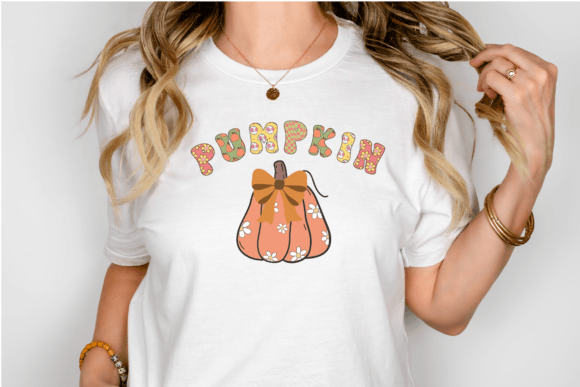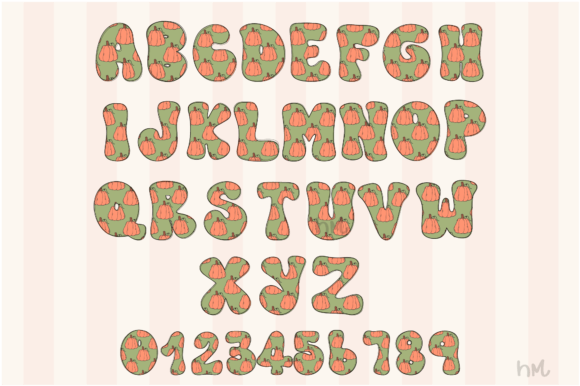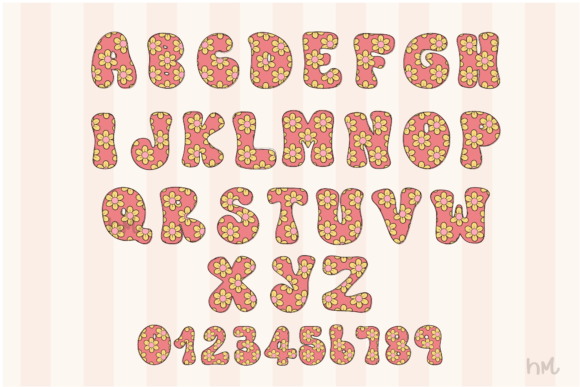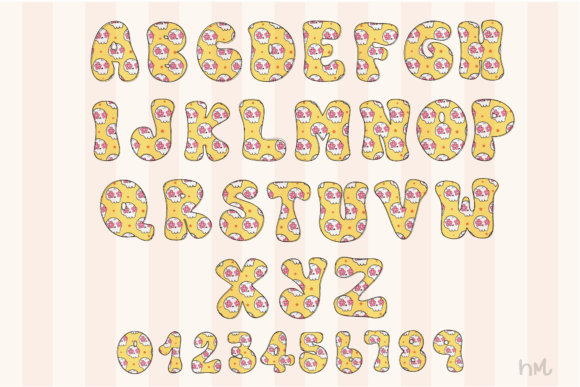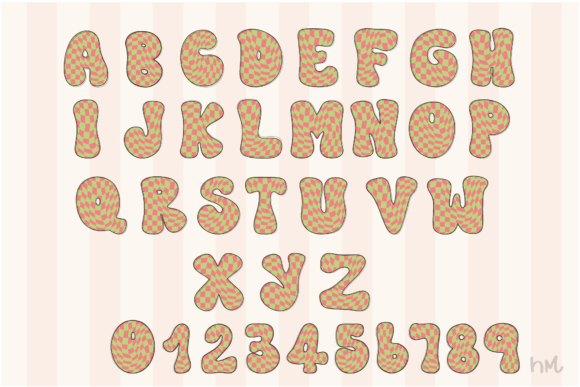
Autumn Vibes Font: Add a Touch of Cozy to Your Fall Projects
As the leaves change colors and the air grows crisper, it’s the perfect time to infuse your designs with the warmth and coziness of autumn. Introducing the Autumn Vibes Font, a fun and colorful typeface that’s sure to bring the magic of the season to your projects. In this article, we’ll dive into the details of this delightful font, its features, and how you can use it to create stunning autumn-themed designs.
What is Autumn Vibes Font?
Autumn Vibes is a unique and playful font that’s specifically designed to capture the essence of fall. Each letter is carefully crafted with cute autumn patterns, including pumpkins, leaves, and even little ghosts, making it perfect for creating festive and cozy designs. The font comes in two versions: black and color. The black version is compatible with Cricut Design Space and other cutting machines, while the color version is compatible with certain design programs, including PhotoShop, Illustrator, Silhouette, and Inkscape.
Key Features of Autumn Vibes Font
- Fun and colorful design: Each letter features adorable autumn patterns, making it perfect for fall-themed designs.
- Two font versions: Choose from a black version compatible with Cricut Design Space and other cutting machines, or a color version compatible with select design programs.
Design Ideas with Autumn Vibes Font
With Autumn Vibes Font, the design possibilities are endless. Here are a few ideas to get you started:
- Fall-themed party invitations: Create warm and inviting invitations with Autumn Vibes Font, complete with cute pumpkin and leaf patterns.
- Autumn-themed crafts: Design custom paper crafts, such as cards, gift tags, and banners, with the Autumn Vibes Font.
- Social media graphics: Add a touch of autumn coziness to your social media graphics, from Facebook posts to Instagram stories.
- Vinyl decals: Use the black version of Autumn Vibes Font to create custom vinyl decals for your laptop, water bottle, or any other surface.
Autumn Vibes Font is the perfect addition to any designer’s toolkit, offering a fun and colorful way to infuse autumnal charm into your projects. With its compatibility with popular design software and cutting machines, you can easily bring your creative ideas to life. Whether you’re a seasoned designer or a crafty enthusiast, Autumn Vibes Font is sure to become your go-to typeface for all your fall-themed designs.